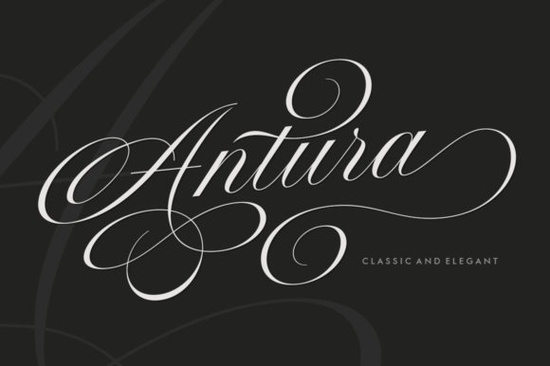
Designers and crafters often struggle to find script typefaces that look hand-written but remain legible on various materials. The Antura Font solves this by blending classic copperplate styles with modern readability. It offers a smooth, feminine aesthetic that works well for both formal invitations and casual branding. If you need a typeface that feels glamorous without sacrificing clarity, this option deserves a closer look.
What defines the visual style of this typeface?
This script is designed with high detail to bring stylish elegance to your projects. It functions as a classic decorative copper script with a modern touch, featuring many fancy letter connections that create a flowing rhythm. Unlike some messy scripts, the characters here are clean and simple. The font includes viable style alternatives for many letters, allowing you to customize ligatures and swashes to avoid repetitive patterns in longer words.
For those who enjoy this specific copperplate vibe, you might also explore similar elegant scripts like Bella Bellia for comparison. Both options focus on high-detail strokes that mimic real calligraphy pens. The sensual and glamorous feel makes it particularly suitable for fashion labels, makeup branding, or high-end stationery. It strikes a balance between decorative flair and professional utility.
How does the technical encoding help users?
One of the most practical features is the Unicode PUA encoding. This allows full access to all additional characters without requiring special design software. Mac users can access these glyphs using Font Book, while Windows users can utilize the Character Map. This removes the barrier for hobbyists who may not own advanced typography tools.
Accessibility is key for small business owners managing their own branding. You do not need to be a technical expert to access the alternate characters. This ease of use ensures that the final output matches the preview images you see online. It simplifies the workflow for print-on-demand sellers who need to generate mockups quickly.
Which projects benefit most from this design?
The classic style is perfect to be applied in various formal forms such as invitations, labels, and restaurant menus. It also performs well on packaging and logos where a touch of sophistication is required. For seasonal work, you might consider pairing it with seasonal projects with Christmas Wish to maintain a cohesive holiday theme. The readability ensures that important information, like dates or addresses, remains clear to the reader.
Novels, magazines, and books can also utilize this typeface for chapter headings or cover titles. It adds a layer of personality to advertising purposes without overwhelming the main message. Greeting and wedding cards are another strong use case, as the feminine and sensual lines convey warmth and celebration. The versatility allows it to fit into both digital and print media environments.
Are there other clean script options available?
If you prefer something slightly more whimsical, the whimsical feel of Moon Child might suit your needs. However, for a stricter copperplate look, this current selection remains a top choice. Designers looking for minimalism might compare it to cleaner options such as Absolutely Silent. Understanding these differences helps you select the right tool for the specific emotional tone of your project.
Practical Checklist for Using Script Fonts
- Check Legibility: Ensure the fancy connections do not obscure important text.
- Test on Materials: Print a sample on your intended paper or fabric before full production.
- Use Alternates: Rotate alternate characters to prevent repetitive letter shapes in long words.
- Verify Encoding: Confirm your software supports Unicode PUA to access all glyphs.
- Pair Carefully: Combine with a simple sans-serif font for body text to maintain balance.